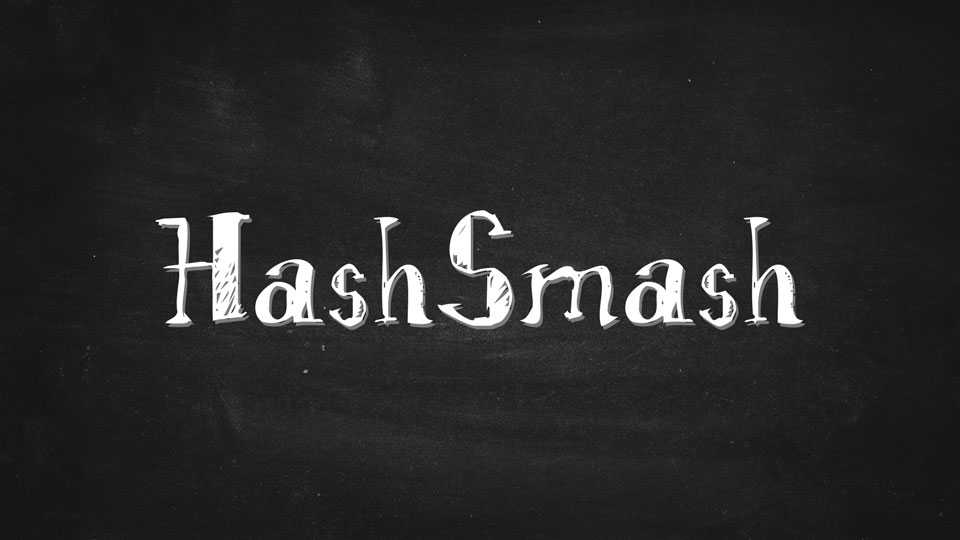
Download Hash Smash font, a whimsical and playful hand-drawn typeface that breathes life and creativity into your designs. The font’s playful irregularities and hatched lines create a dynamic and energetic vibe, making it perfect for projects that demand a lighthearted and creative flair.